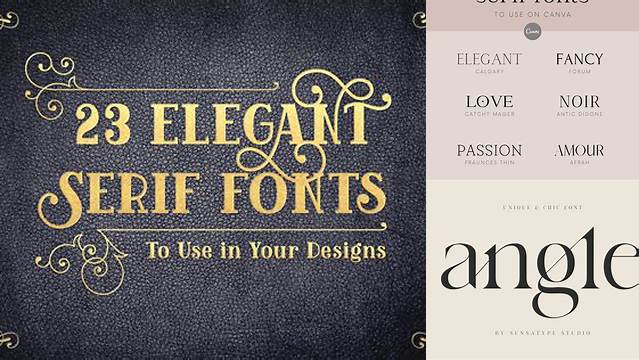
Elegant Free Serif Fonts: Your Best Choices
Hey guys! Looking to add a touch of class to your designs without breaking the bank? You're in the right place! We're diving deep into the world of elegant free serif fonts. These fonts are perfect for adding that sophisticated and timeless feel to your projects, whether it’s a website, a logo, or even a wedding invitation. So, buckle up and let's explore the best options out there!
What are Serif Fonts?
Before we jump into the specifics, let's quickly recap what serif fonts are. Serif fonts are characterized by the small decorative strokes (called serifs) at the end of each letter's main strokes. These little details give serif fonts a classic and often formal appearance. Think Times New Roman, Georgia, or Garamond – these are all prime examples of serif fonts. Elegant free serif fonts bring a unique blend of tradition and modernity, making them versatile for a wide range of design applications.
Why Choose Serif Fonts?
Serif fonts have a long history in print and are often associated with readability and sophistication. They tend to guide the eye across the page, making them a great choice for body text in books, articles, and websites. When it comes to creating an elegant look, elegant free serif fonts can really elevate your design. They can convey a sense of authority, trustworthiness, and refinement. This is why you often see them used in branding for luxury goods, legal firms, and academic institutions. Plus, with so many free serif fonts available, there's no need to compromise on style just because of budget constraints.
1. Exploring the World of Free Elegant Serif Fonts
The world of free elegant serif fonts is vast and varied, offering a plethora of options to suit any project's needs. From the clean lines of modern serifs to the ornate details of vintage styles, there's a perfect font out there waiting to be discovered. When diving into this world, it's essential to consider the specific mood and message you want to convey. For instance, a classic serif like Lora might be ideal for a literary blog, while a more contemporary serif like Playfair Display could be perfect for a fashion magazine. The beauty of free serif fonts lies in their accessibility, allowing designers of all levels to experiment and find the perfect fit for their creative vision.
1.1. The Timeless Appeal of Serif Fonts
Serif fonts have a timeless appeal that transcends trends and fads. Their classic roots provide a sense of stability and tradition, making them a reliable choice for projects that require a lasting impression. The elegance of serif fonts stems from their carefully crafted letterforms, which often feature subtle variations in stroke weight and the delicate serifs themselves. This attention to detail adds a layer of sophistication that is hard to replicate with sans-serif fonts. Whether you're designing a book cover, a business card, or a website header, elegant free serif fonts can bring a sense of enduring quality to your work. And let's be real, guys, who doesn’t want their work to look timeless?
1.2. Serif Fonts for Modern Design
While serif fonts are often associated with traditional designs, they can also be incredibly effective in modern contexts. The key is to choose a serif font that has been updated and refined for contemporary use. Many designers are now incorporating serif fonts into minimalist layouts, creating a striking contrast between the classic typeface and the clean, uncluttered design. In digital design, elegant free serif fonts can provide a touch of warmth and personality that some sans-serif fonts lack. This makes them a great option for websites, apps, and other digital platforms. The versatility of serif fonts is one of their greatest strengths, making them a valuable tool in any designer's toolkit.
1.3. How to Choose the Right Serif Font
Choosing the right serif font can make or break a design. It's not just about picking a font that looks pretty; it's about finding one that aligns with the overall message and style of your project. Consider the tone you want to convey – is it formal, friendly, serious, or playful? The personality of the font should complement the content and enhance the user experience. When evaluating free serif fonts, pay attention to details like the x-height (the height of the lowercase letters), the contrast between thick and thin strokes, and the overall rhythm of the typeface. A well-chosen serif font can elevate your design and leave a lasting impression on your audience. So, spend some time exploring your options and find the perfect match for your project.
2. Top Free Elegant Serif Fonts to Consider
Okay, let's get into the good stuff! There are tons of free elegant serif fonts out there, but some really stand out from the crowd. We've curated a list of some of the best options, covering a range of styles and applications. These fonts are all free for personal or commercial use, so you can use them in your projects without worrying about licensing fees. Let's dive in and see what these free serif fonts have to offer!
2.1. Lora: A Balanced and Modern Serif
Lora is a well-balanced serif typeface with roots in calligraphy. It's known for its readability and contemporary feel, making it a versatile choice for body text and headlines alike. The slightly curved serifs give it a touch of elegance, while the strong, sturdy letterforms ensure it remains legible even at small sizes. Elegant free serif fonts like Lora are perfect for long-form content, such as blog posts or articles, where readability is paramount. Its clean lines and subtle sophistication make it a favorite among designers and writers alike. If you're looking for a serif font that's both modern and timeless, Lora is definitely worth considering.
2.2. Playfair Display: For Headlines with Flair
Playfair Display is a classic serif font designed for headlines and titles. Its high contrast and delicate serifs give it a sophisticated and elegant appearance. This font exudes a sense of grandeur and is often used in fashion magazines, luxury branding, and wedding invitations. Elegant free serif fonts like Playfair Display are designed to grab attention and make a statement. While it may not be the best choice for body text due to its high contrast, it's a fantastic option for creating eye-catching headings and subheadings. If you want to add a touch of drama and elegance to your design, Playfair Display is a great choice.
2.3. Merriweather: Readability at Its Finest
Merriweather is a serif typeface specifically designed for on-screen readability. Its slightly condensed letterforms and robust serifs make it easy to read even on smaller screens. This font strikes a balance between elegance and practicality, making it a great choice for websites, blogs, and online publications. Elegant free serif fonts like Merriweather are crucial for ensuring a positive user experience. If your content is primarily consumed online, Merriweather is a reliable and stylish option that won't disappoint. Plus, its versatility means it can work well in both headings and body text.
2.4. Raleway: A Geometric Touch
Raleway is technically a sans-serif font, but the reason it's here is its alternate version, which offers beautiful serif details. This geometric font is sleek and modern, with a touch of elegance in its serifs. It works wonderfully for logos, headlines, and short bursts of text. Raleway's versatility shines through its various weights, allowing you to create a consistent yet dynamic look. These types of elegant free serif fonts are perfect for brands that want a contemporary feel with a classic touch. If you're looking for a font that bridges the gap between modern and traditional, Raleway with its serif variants is worth exploring.
2.5. Arvo: A Slab Serif with Character
Arvo is a slab serif font, characterized by its thick, block-like serifs. This font has a strong and sturdy feel, making it a great choice for headlines and branding. While slab serifs can sometimes feel a bit heavy, Arvo manages to maintain a sense of elegance and sophistication. Elegant free serif fonts in the slab serif category, like Arvo, are perfect for projects that require a bold yet refined look. Whether you're designing a poster, a website header, or a logo, Arvo can add a distinctive and memorable touch. It's also highly readable, making it suitable for shorter paragraphs of text.
3. How to Use Elegant Serif Fonts in Your Designs
Now that we've explored some fantastic free elegant serif fonts, let's talk about how to use them effectively in your designs. Choosing the right font is only half the battle; knowing how to implement it is just as crucial. Whether you're working on a website, a print project, or a logo, these tips will help you make the most of your chosen serif font. Remember, the goal is to enhance your message and create a visually appealing design.
3.1. Pairing Serif Fonts with Sans-Serif Fonts
One of the most effective ways to use serif fonts is to pair them with sans-serif fonts. This creates a visual hierarchy and adds interest to your design. Typically, serif fonts are used for headlines and titles, while sans-serif fonts are used for body text. This combination provides a clear contrast and enhances readability. When pairing elegant free serif fonts with sans-serifs, look for fonts that complement each other in terms of weight, style, and overall tone. For example, you might pair the elegant Playfair Display with the clean and modern Open Sans. The key is to create a harmonious balance between the two typefaces.
3.2. Creating Visual Hierarchy with Serif Fonts
Visual hierarchy is crucial for guiding the reader's eye and ensuring that your message is effectively communicated. Serif fonts can play a key role in creating this hierarchy. Use different sizes, weights, and styles of your chosen serif font to emphasize important elements and create a clear flow of information. For instance, you might use a bold weight for headlines, a regular weight for subheadings, and a lighter weight for body text. Elegant free serif fonts offer a variety of weights and styles, giving you the flexibility to create a visually engaging layout. Experiment with different combinations to find what works best for your specific project.
3.3. Using Serif Fonts for Logos and Branding
Serif fonts are a popular choice for logos and branding, especially when conveying a sense of tradition, elegance, or authority. Many luxury brands, law firms, and academic institutions use serif fonts in their logos to project a sense of credibility and sophistication. When using elegant free serif fonts for branding, it's important to choose a typeface that is both memorable and versatile. Consider how the font will look in different sizes and contexts, from business cards to websites. A well-chosen serif font can become a powerful visual element in your brand identity.
3.4. Serif Fonts in Print vs. Digital Design
Serif fonts have a long history in print design and are often associated with books, magazines, and newspapers. Their readability and classic appearance make them a natural choice for printed materials. In digital design, elegant free serif fonts can add a touch of warmth and personality to websites and apps. However, it's important to consider how the font will render on different screens and devices. Some serif fonts may appear blurry or pixelated at smaller sizes, so it's crucial to test your font choices on various platforms. When using serif fonts in digital design, opt for typefaces that are specifically designed for on-screen readability, such as Merriweather or Lora.
3.5. The Importance of Kerning and Leading
Kerning (the spacing between individual letters) and leading (the spacing between lines of text) are crucial aspects of typography that can significantly impact readability and visual appeal. Even the most elegant free serif fonts can look clunky if not kerned and leaded properly. Pay attention to the spacing between letters and lines to ensure that your text is easy to read and visually balanced. Experiment with different kerning and leading settings to find what works best for your chosen font and layout. Small adjustments can make a big difference in the overall appearance of your design.
4. Where to Find More Free Elegant Serif Fonts
So, you're hooked on elegant free serif fonts now, right? That's awesome! The good news is, there are tons of resources out there where you can discover even more fantastic typefaces. Whether you're looking for a specific style or just want to browse, these websites offer a treasure trove of free fonts. Let's explore some of the best places to find your next favorite free serif fonts.
4.1. Google Fonts: A Vast and Reliable Resource
Google Fonts is a go-to resource for many designers, and for good reason. It offers a vast library of free, open-source fonts, including a wide selection of elegant serif options. The fonts on Google Fonts are high-quality, easy to use, and compatible with most web browsers and devices. Plus, you can easily embed them into your website using Google's simple code snippets. When searching for free serif fonts on Google Fonts, you can filter by style, weight, and other criteria to narrow down your options. Some popular elegant serif fonts on Google Fonts include Lora, Merriweather, and Playfair Display.
4.2. Font Squirrel: Handpicked Free Fonts
Font Squirrel is another excellent resource for free fonts. What sets Font Squirrel apart is its curated selection of fonts, ensuring that everything you find is of high quality and legally free for commercial use. The site also offers a handy Font Identifier tool, which can help you identify fonts based on an image. This is a great way to find similar free serif fonts if you come across a typeface you like but don't know the name of. Font Squirrel is a fantastic place to discover unique and elegant serif fonts that you might not find anywhere else.
4.3. DaFont: A Community-Driven Font Library
DaFont is a popular website with a massive collection of free fonts, uploaded by designers from around the world. While the quality can vary, DaFont offers a wide range of styles, including many elegant serif options. It's important to pay attention to the licensing information for each font, as some may only be free for personal use. However, with a little digging, you can find some real gems. DaFont's user-friendly interface makes it easy to browse and download fonts, and its community-driven nature means there's always something new to discover. It is a great resource to find those perfect free serif fonts for your creative projects.
4.4. Behance and Dribbble: Discover Fonts from Designers
Behance and Dribbble are online communities for designers to showcase their work. Often, designers will share free resources, including fonts, as part of their projects. These platforms are a great way to discover unique and stylish typefaces that you might not find on traditional font websites. When browsing Behance and Dribbble, look for design projects that feature elegant serif fonts and check if the designer has made the font available for download. This is a fantastic way to support independent designers and find free serif fonts that have a personal touch.
4.5. Creative Market Free Goods: Weekly Freebies
Creative Market is a marketplace for design assets, including fonts, graphics, and templates. They offer a selection of free goods every week, which often includes fonts. While you'll need to create an account to access the freebies, it's worth it for the opportunity to download high-quality fonts and other resources. The free fonts on Creative Market are typically available for a limited time, so it's a good idea to check back regularly to see what's new. This is an excellent way to build your font library with premium free serif fonts and other design assets.
5. Tips for Working with Free Fonts
Working with free fonts can be a fantastic way to enhance your designs without spending a fortune. However, it's important to keep a few things in mind to ensure a smooth and professional workflow. Not all free serif fonts are created equal, and understanding the nuances of licensing, quality, and usage will help you make the most of these resources. Let's dive into some essential tips for working with free fonts.
5.1. Understanding Font Licensing
One of the most crucial aspects of working with free fonts is understanding the licensing terms. Just because a font is free doesn't mean you can use it in any way you like. Most free serif fonts come with specific licenses that dictate how they can be used, whether it's for personal or commercial projects. Some licenses may restrict usage to non-profit organizations, while others may allow commercial use but prohibit modification or redistribution. Always read the license agreement carefully before using a free font to ensure you're complying with the terms. Ignoring font licenses can lead to legal issues, so it's always better to be safe than sorry.
5.2. Checking Font Quality
Not all free fonts are created equal, and the quality can vary significantly. Before incorporating a free serif font into your project, take the time to assess its quality. Look for issues such as inconsistent letterforms, poor kerning, or missing characters. A well-designed font will have a consistent weight, spacing, and style across all glyphs. If you notice any glaring issues, it's best to choose a different font. Poor quality fonts can detract from the overall appearance of your design, so it's worth investing the time to find a reliable typeface.
5.3. Using Font Management Tools
If you work with a lot of fonts, a font management tool can be a lifesaver. These tools help you organize, activate, and deactivate fonts as needed, preventing your system from becoming cluttered and slow. Font management tools also make it easier to preview fonts and compare different typefaces. Many font management tools are available, both free and paid, so you can choose one that fits your needs and budget. Streamlining your font workflow with a management tool can save you time and frustration, allowing you to focus on the creative aspects of your project.
5.4. Backing Up Your Fonts
It's always a good idea to back up your fonts, especially the free serif fonts that you've downloaded from various sources. This ensures that you won't lose your favorite typefaces if your computer crashes or you accidentally delete them. Create a dedicated folder on an external hard drive or cloud storage service to store your font files. Regularly backing up your fonts is a simple yet effective way to protect your valuable design assets.
5.5. Testing Fonts in Different Contexts
Before finalizing your design, it's essential to test your chosen font in different contexts. This includes viewing it on various screens and devices, printing it out, and trying it with different color combinations. What looks great on your computer screen may not translate well to other mediums. Testing your free serif fonts in different contexts allows you to identify any potential issues and make adjustments as needed. This step is crucial for ensuring that your design looks polished and professional, no matter how it's viewed.
6. The Future of Elegant Serif Fonts
The world of typography is constantly evolving, and elegant serif fonts are no exception. As design trends shift and technology advances, we can expect to see new and innovative takes on classic serif typefaces. The future of free serif fonts is bright, with designers pushing the boundaries of what's possible and creating typefaces that are both timeless and cutting-edge. Let's explore some of the trends and developments that are shaping the future of elegant serif fonts.
6.1. The Rise of Variable Fonts
Variable fonts are a relatively new technology that allows for greater flexibility and customization in typography. Unlike traditional fonts, which have a fixed set of weights and styles, variable fonts can be adjusted along multiple axes, such as weight, width, and slant. This means that a single variable font file can contain a virtually unlimited number of variations, making it incredibly versatile and efficient. Elegant free serif fonts are increasingly being offered in variable font formats, giving designers more control over the appearance of their text. The rise of variable fonts is a game-changer for typography, and we can expect to see more and more designers embracing this technology in the years to come.
6.2. Serif Fonts in Web Design
Serif fonts have traditionally been more prevalent in print design, but they're making a strong comeback in web design. As screen resolutions improve and web technologies advance, elegant free serif fonts are becoming more legible and visually appealing online. Many designers are now using serif fonts for headlines, body text, and even entire website designs. This trend reflects a desire for greater personality and sophistication in web typography. If you're looking to add a touch of elegance and warmth to your website, consider incorporating serif fonts into your design.
6.3. The Blend of Classic and Modern Styles
One of the most exciting trends in typography is the blend of classic and modern styles. Designers are taking inspiration from traditional serif typefaces and infusing them with contemporary elements, creating fonts that are both timeless and cutting-edge. Elegant free serif fonts that strike this balance are particularly popular, as they offer a fresh and sophisticated look. This trend reflects a broader movement in design towards combining the best of the old and the new, resulting in typefaces that are both familiar and innovative.
6.4. Accessibility Considerations
Accessibility is becoming increasingly important in all areas of design, including typography. When choosing free serif fonts, it's crucial to consider readability and legibility, especially for users with visual impairments. Opt for fonts that have clear and distinct letterforms, adequate spacing, and sufficient contrast. Many font designers are now creating typefaces specifically with accessibility in mind, ensuring that their fonts are usable by everyone. Prioritizing accessibility in your font choices not only benefits your users but also demonstrates a commitment to inclusivity.
6.5. The Influence of Handwriting and Calligraphy
The art of handwriting and calligraphy continues to influence font design, with many elegant free serif fonts drawing inspiration from these traditional crafts. Typefaces that mimic the fluid strokes and organic forms of handwriting can add a personal and artistic touch to your designs. These fonts are particularly popular for invitations, branding, and other projects where a human touch is desired. The influence of handwriting and calligraphy on font design is a testament to the enduring appeal of these artistic traditions.
So, there you have it! A deep dive into the wonderful world of elegant free serif fonts. We've explored why serif fonts are so versatile, some of the best free options available, and how to use them effectively in your designs. Remember, guys, choosing the right font can make a huge difference in the overall impact of your work. Free serif fonts offer a fantastic way to add sophistication and class to your projects without breaking the bank.
Whether you're designing a website, a logo, or a print piece, there's an elegant serif font out there that's perfect for you. So go ahead, explore, experiment, and have fun with typography! With the knowledge and resources we've covered, you're well-equipped to create stunning designs that stand out from the crowd. Happy designing!